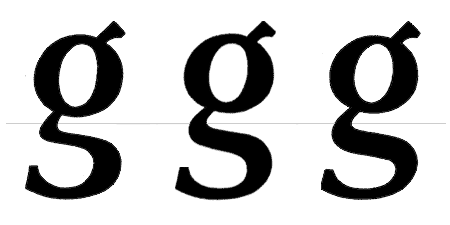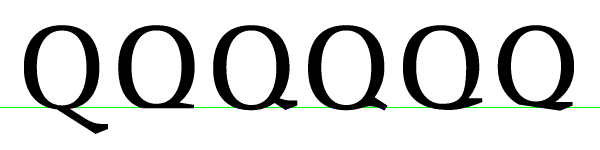
Here's the main weight of Patria, my first "serious" Latin text face. It's part of a larger system which contains "counter-balanced" Armenian fonts (it's a long story - as you might suspect).
You'll need to do a fair amount of zooming, and please pardon the occasional outline infidelity that Flash introduces (like in the inner part of the lc "j"'s tail, the top-right of the numeral "2", et alia).
I'm daring to cast Patria as a next-generation newspaper face (or at least a face fit for magazines). Its x-height is somewhat small for this purpose, because I place more value on boumas (word shapes) than most designers. Also, it actually sets narrower than it looks, maybe because the open, generous forms increase its apparent size/width.
I've tried to give Patria a full-bodied rigidity (read: masculinity) that seems to me to be lacking in the field of text face design. The Carolingian structures are generally very fluid/feminine, which is nice, except I feel there's too much of it now. Blackletter is very masculine, but it's not really usable any more (or at least not right now). The post-modern boys use a lot of rigidity, but they tend to apply it too literally to allow for immersive reading - I've tried to be more subtle. On the other hand, in certain places I've consciously sacrificed readability in order to reinforce the design's character (like in making the lc "s" somewhat wide).
I hadn't looked at Patria for over two months, but now that I'm re-evaluating it, I can see a few things I'd like to change, pending feedback from you guys:
1. I want to make the beaks that come off of horizontal bars (like in the UC "F") much larger.
2. I'm going to rethink the numerals. I'm considering making them Carter-style ("hybrid") numerals, but the all-horizontal stress I really cherish. Any ideas?
3. I'm also unhappy with a number of the non-alphabetic glyphs, but I'll wait for you to tell me which ones *you* don't like! And I guess that applies to the *alphabetic* glyphs too...
4. I personally prefer the alternate UC "U", but hesitate to place it as the primary form.
5. Are the accents too small?
6. In the Italics: even though I want it to be rigid like the Roman (in fact, I like it to be as close to the Roman as aesthetically and functionally possible), I think I'm going to make the beaks/terminals (like in the lc "s") softer in contour.
7. The spacing was a rush job - it needs to be redone. Also, I'm starting to think that it's too loose overall, unless I should account for severe ink bleed - in case my original target medium (newspapers) is reasonable. Lastly, I've yet to add any UC-UC kerning (there are just some manual tweaks right now). For this, I'm considering giving all UC pairs wide spacing, since it helps all-caps setting. Crazy?
8. I'm considering making midcaps (like in Fenway). If I do, then I might implement that overall loose UC spacing I just mentioned for the midcaps, but not the regular "full" caps.
9. I will eventually put trapping in the font - the degree of trapping depends very much on the best usage medium for this face.
I have a lot of trouble evaluating my own work (especially something outside Armenian, my specialty), and have to constantly fight myself to find the right compromises, so any insight would be greatly appreciated.
I'll start by saying that the italic is very
lovely, but the overhangs on the 'f' and
'r' distract.
The beaks bigger? A la Eureka?
Why hesitate on the 'U'? I assume you
mean a Perpetuish 'U'? Go for it. It works.
An impressive piece of work that is swimming in subtlety. It is very readable, from what I can tell of the small paragraph.
I can tell you what I don't like far easier than what I do, because I like the sum of the parts, but not neccessarily the parts themselves.
I don't like the numbers at all. I think you should go back to the drawing board with them. I don't think any newspaper designer would want to use these as they're more designery (is that a word?) than utilitarian.
The italic is a little too subtly angled. The word "system" hardly stands out at all in that sample paragraph. Also, given the overall aesthetic I don't think it's neccessary to make the italic version so similar in lettershape to the regular.
I cannot see this working as a headline or subheading font, unless you have something up your sleeve for the bold and black versions. The individual letters are not pretty enough, at least not in this regular version, and at least not in my opinion.
The "g": I would have thought that with a vertically stressed font you should avoid the diagonal swoop of the top of the lower bowl. Apart from the "s" this is the only letter that doesn't conform vertically.
That "U" works fine, like Stephen says. But apart from that one instance I can only say that I like the overall effect, but I can't point to anything specific as I think that for the most part you've successfully designed a font that works for word shapes and high readability.
By the way it still vector format, i haven't convert it to type format so i can edit it again easily.
I *wish* I had designed that! :-)
Hrant I nottice some irregularity or inconsistancy in the width and shape of the serifs, specially in a,A,c,C,S.... looks like you used a wide range of possible serif terminations. The shape of the c seems asistemathic to me and the "stems" (couldn